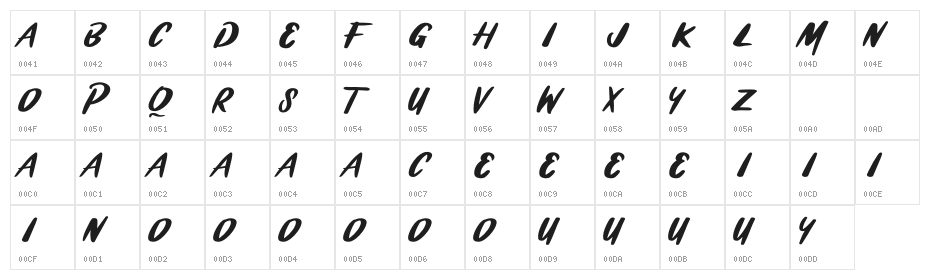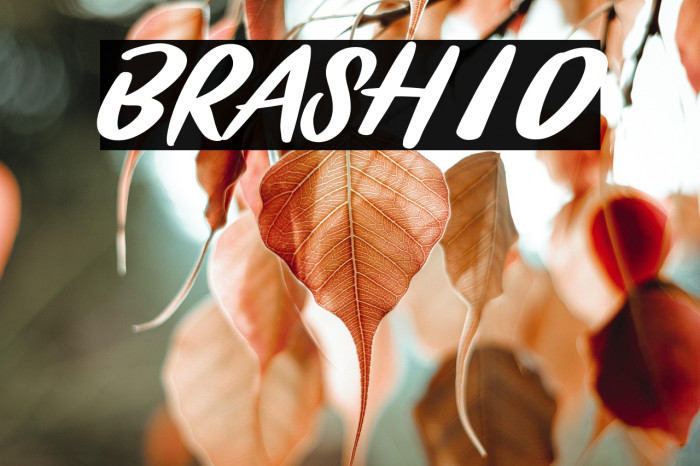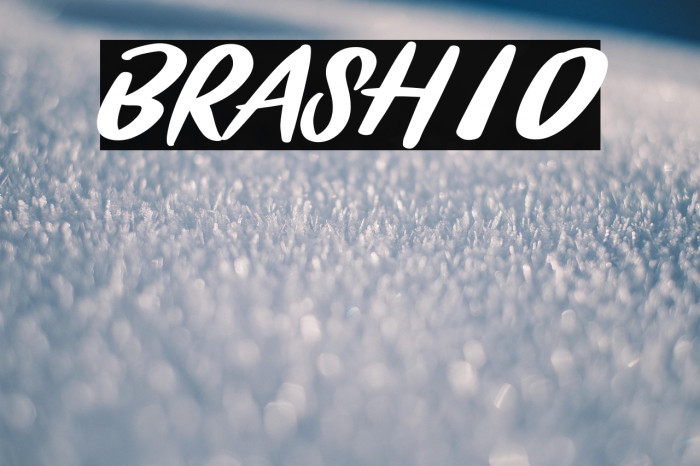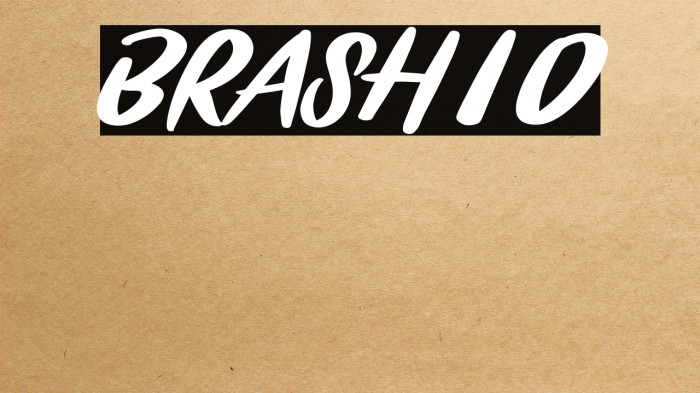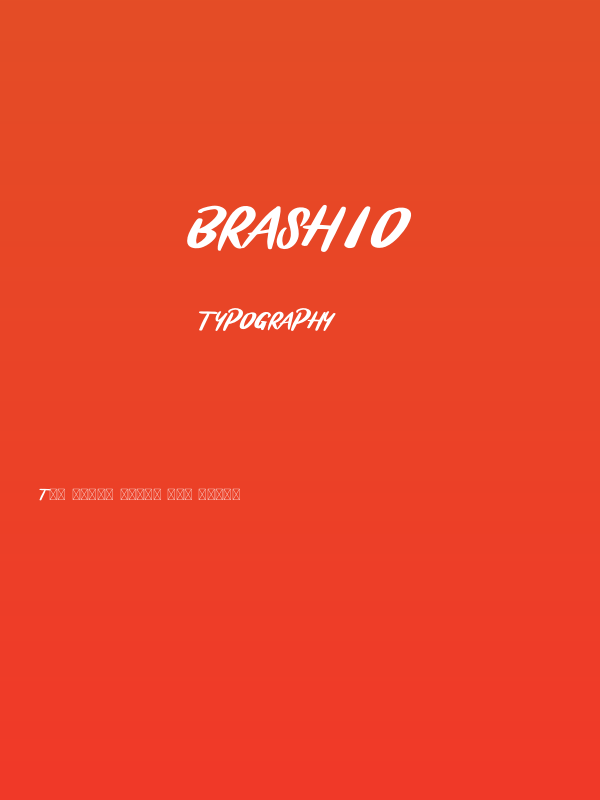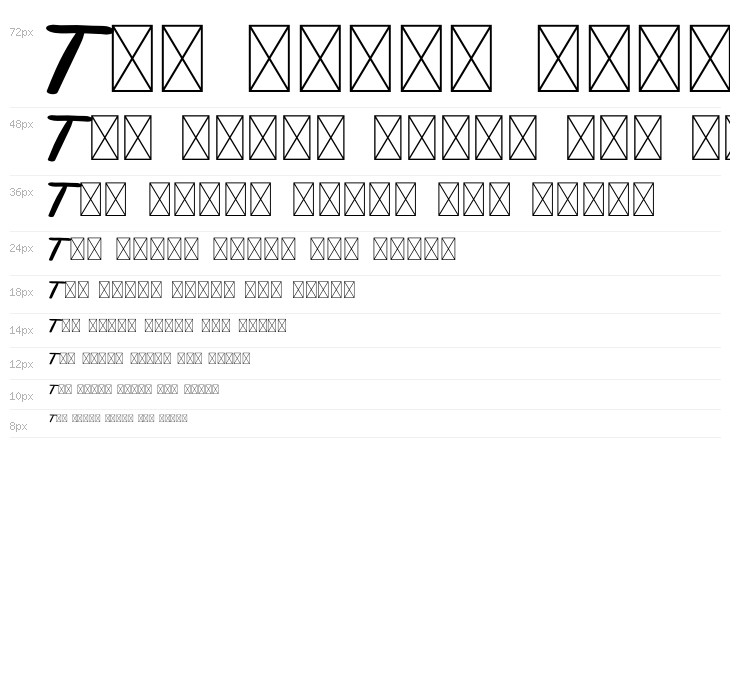
BRASHIO Font
BRASHIO Description
This font features a bold and expressive style with a dynamic brush script appearance. The uppercase letters are fluid and energetic, showcasing a sense of movement and flair. The strokes are thick and confident, with a slight slant that adds to the overall dynamic feel. The font's design is reminiscent of hand-painted signage, making it ideal for projects that require a personal and artistic touch. The characters are well-spaced, ensuring readability while maintaining the font's artistic integrity.
| Proposed Projects | Ideal for branding, posters, headlines, and creative projects that require a bold and artistic touch. |